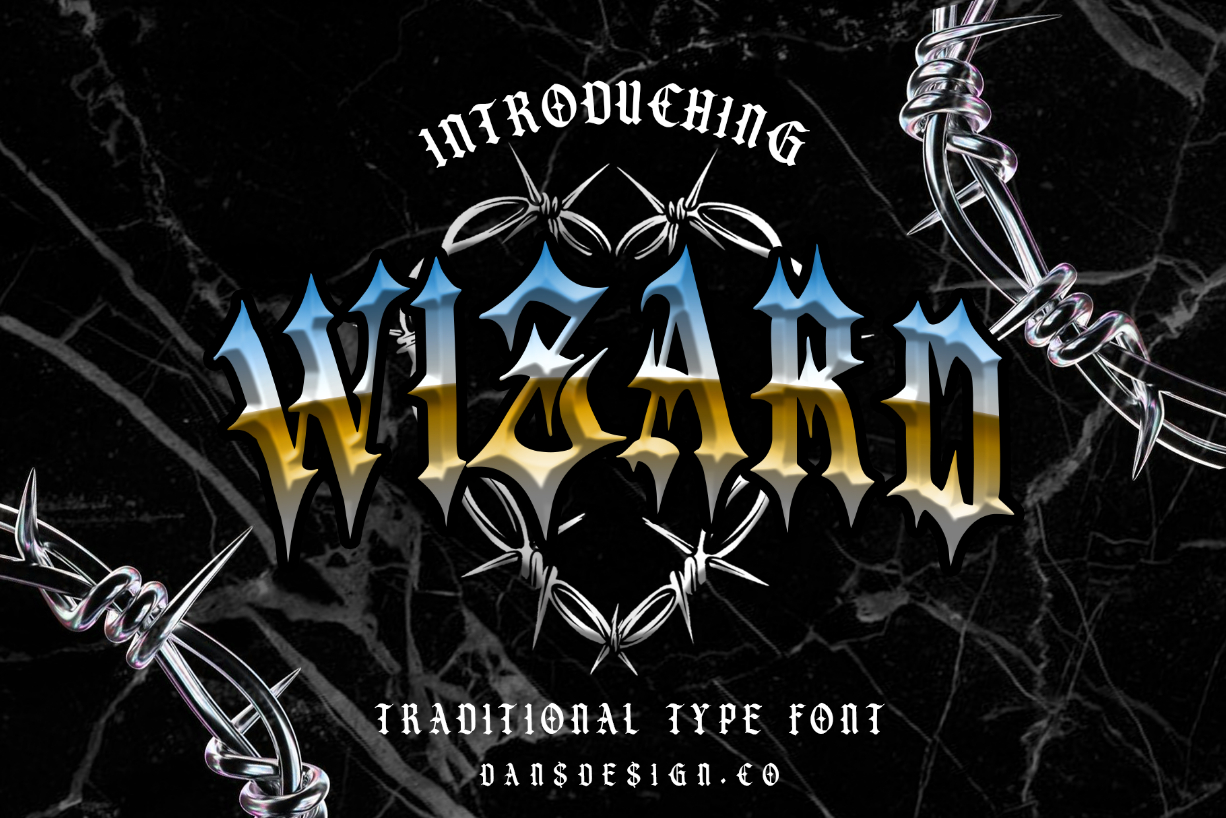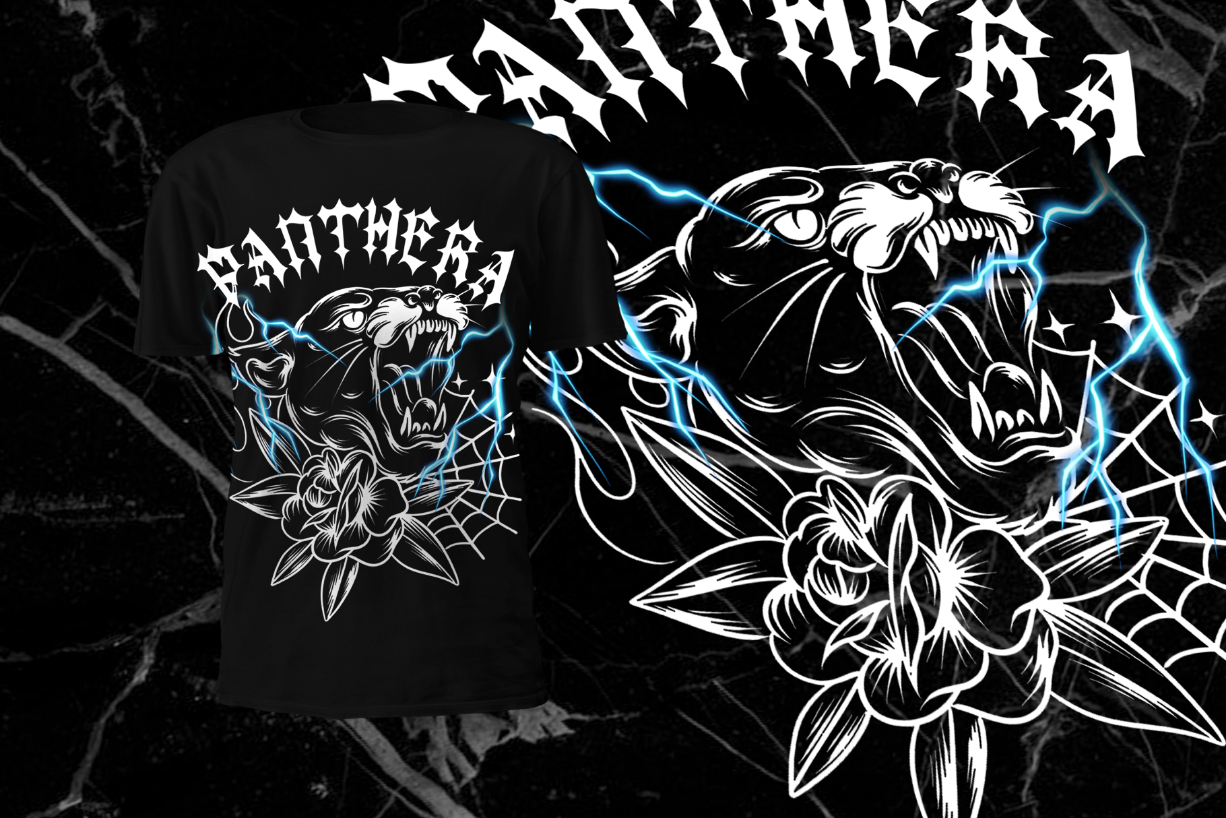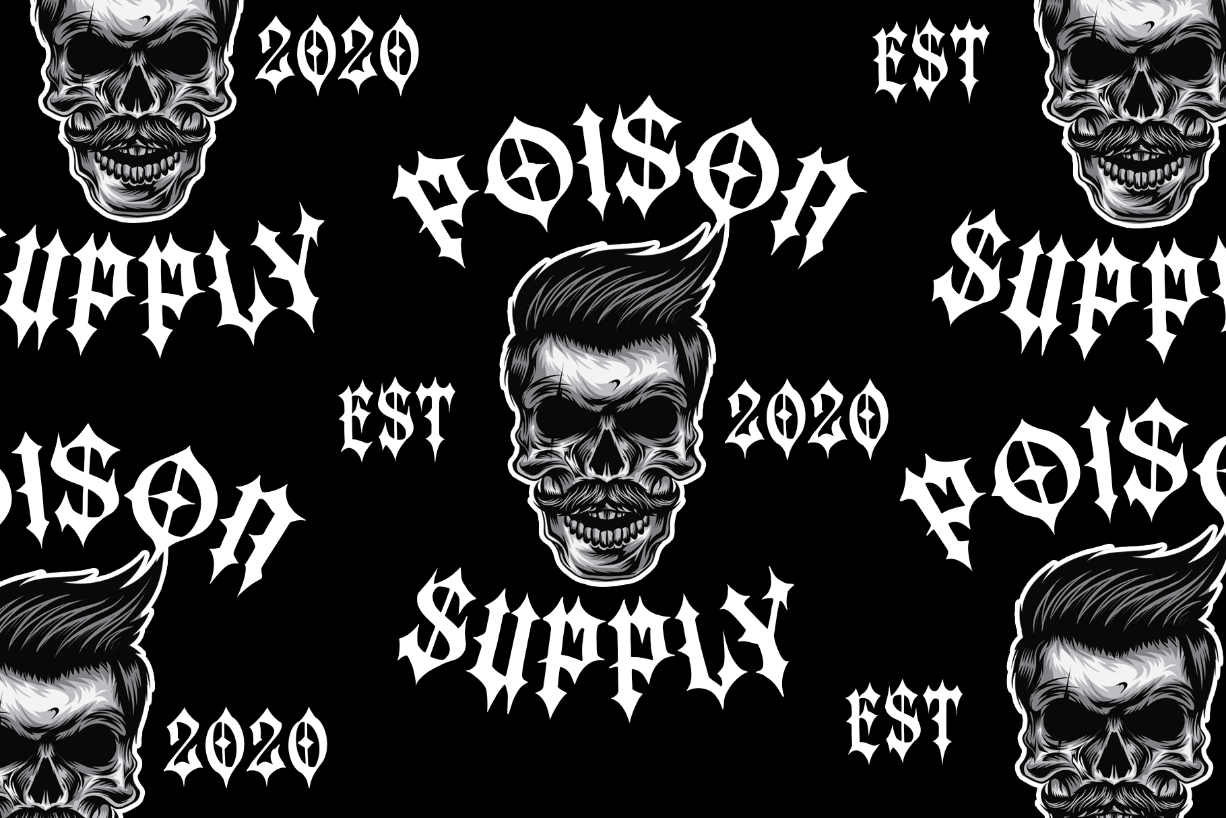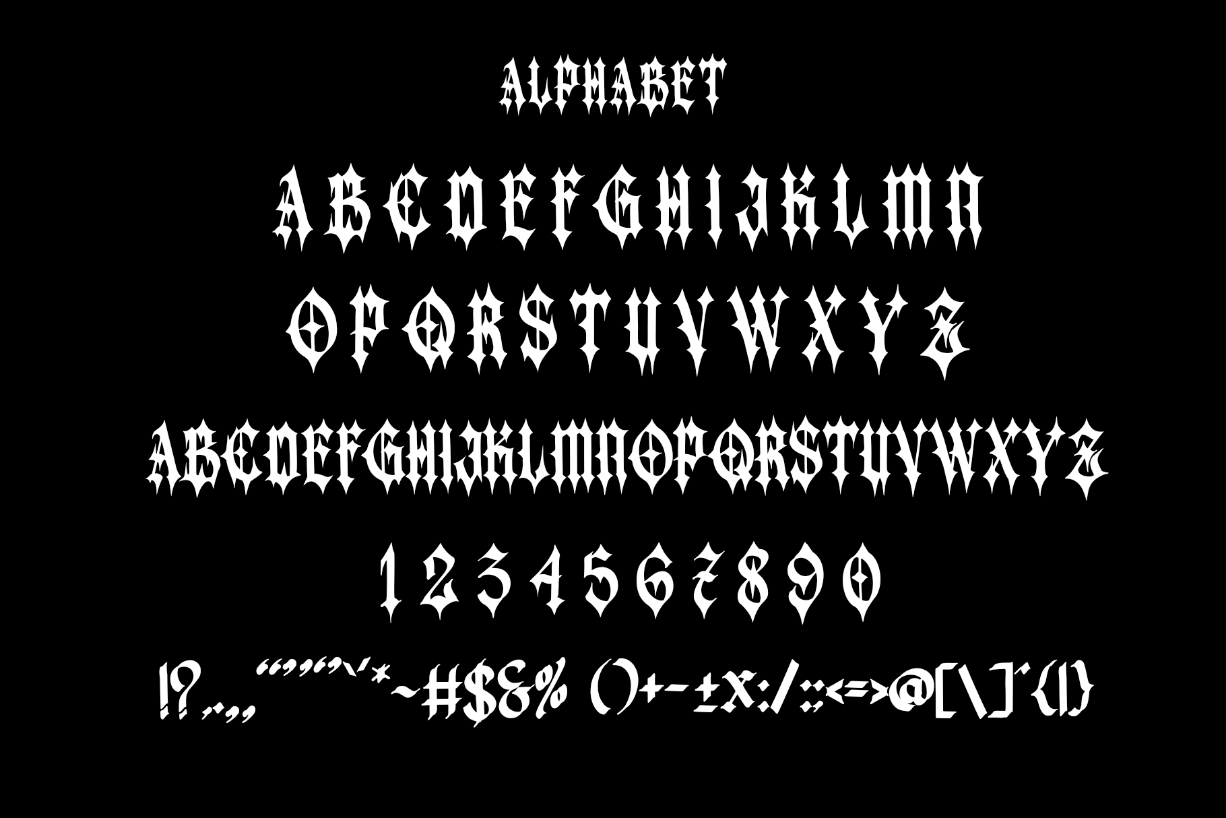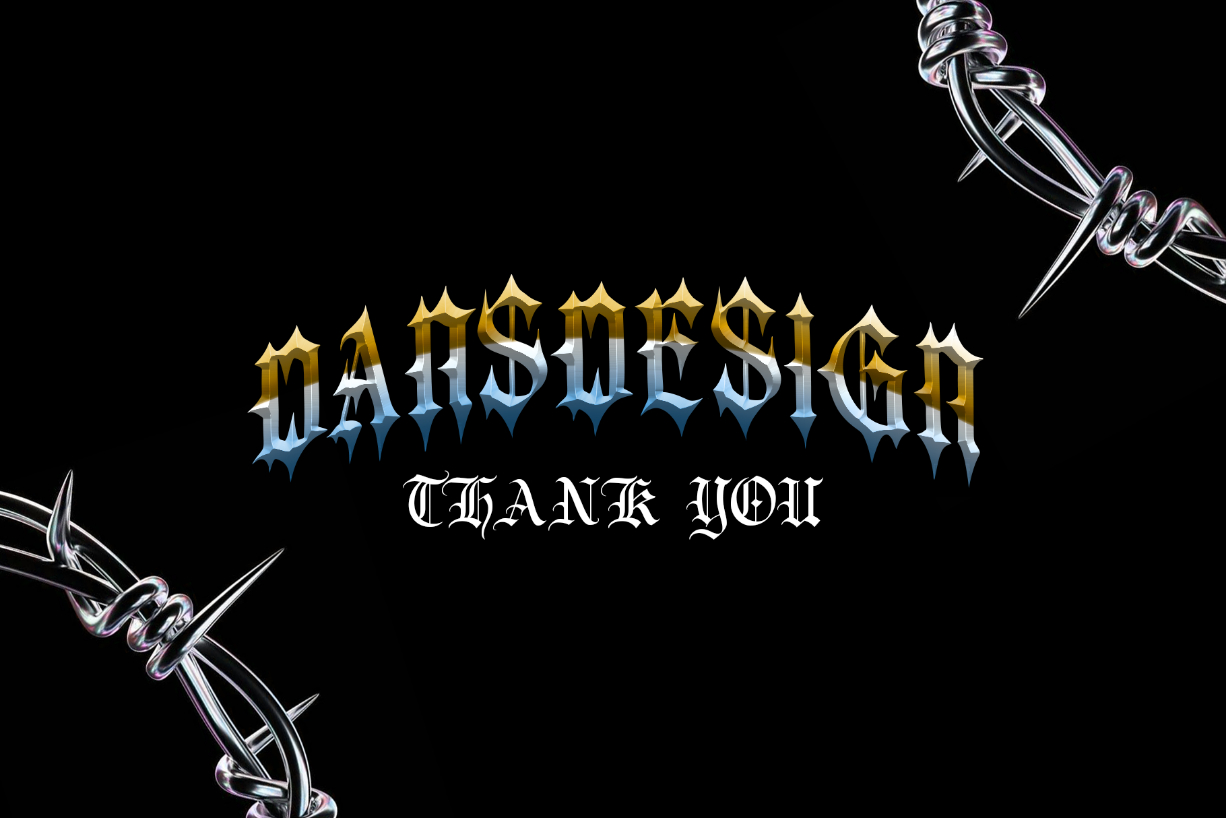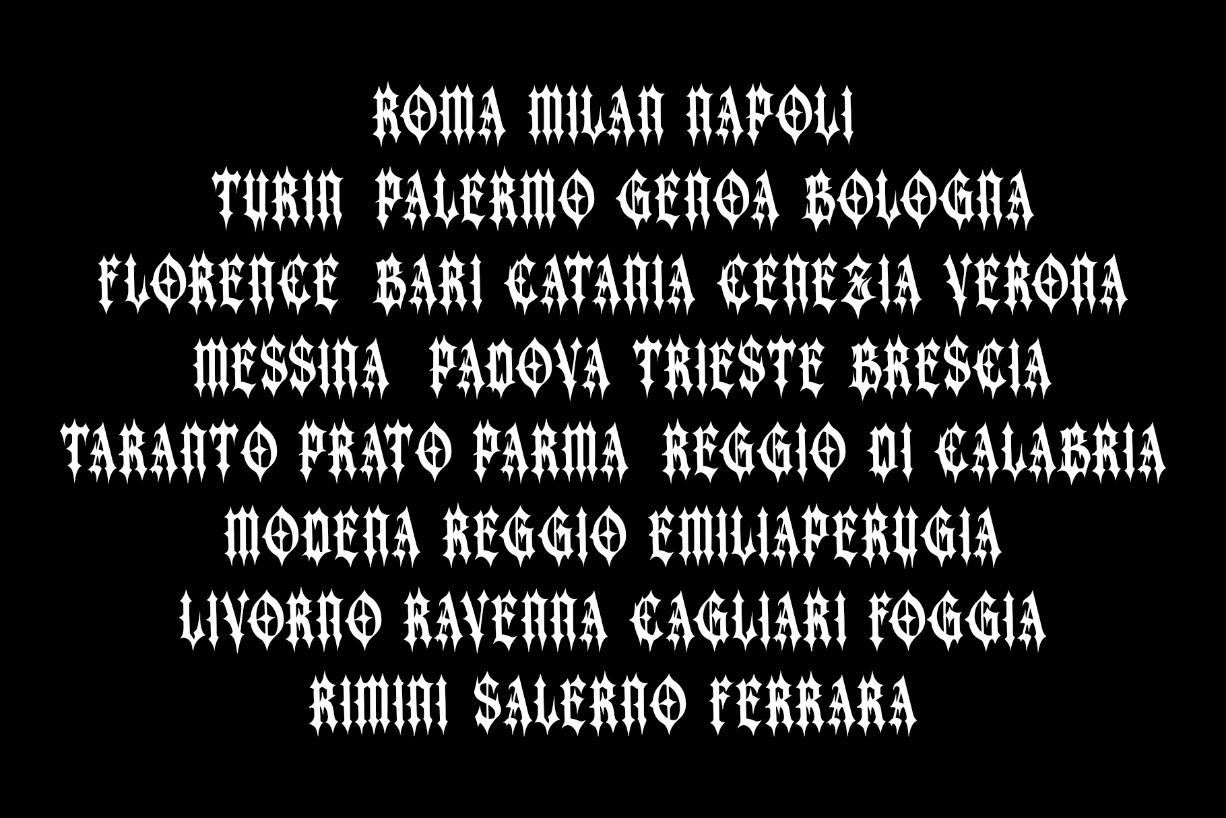
Wizard Font
About Wizard Font
Wizard is a bold and imposing blackletter font. It is ideal for any design that requires an assertive, distinct touch. Add it confidently to your projects, and you will love the results.